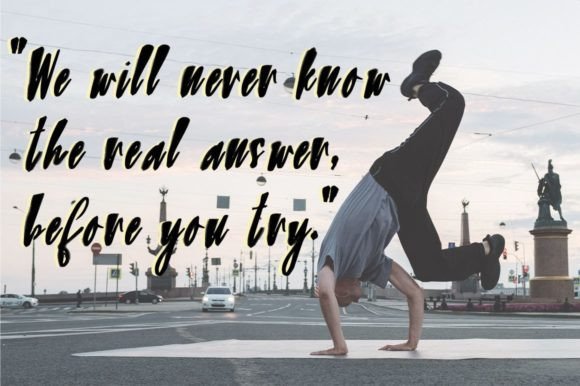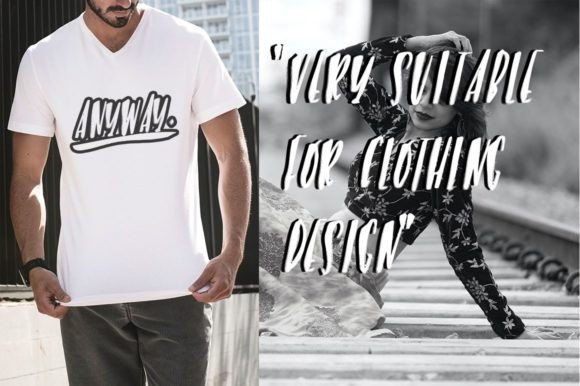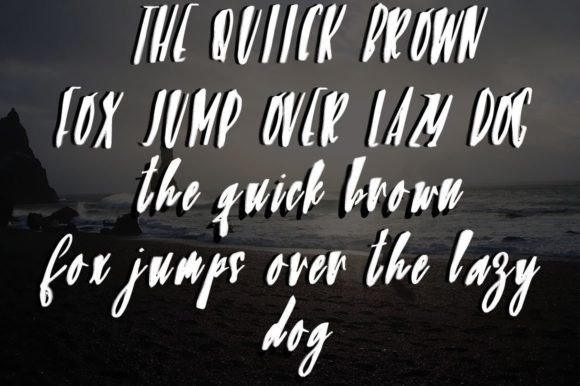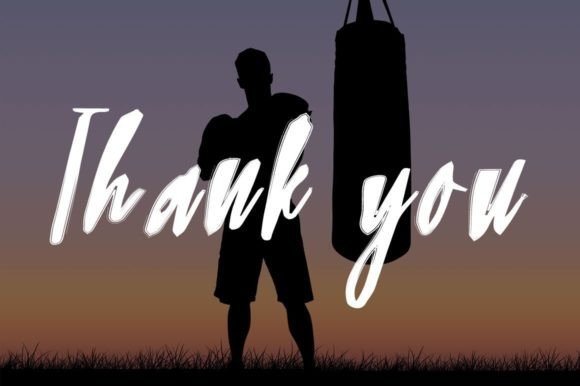
The Ultimate Design Game-Changer: Dinosaur Font
I’ll never forget the moment I stumbled upon the Dinosaur font while working on a project for a client’s dinosaur-themed party invitations. I had been searching for the perfect font for hours, and just when I was about to give up, I found this bold and assertive handwritten font that completely transformed my design. If you’re a designer, crafter, or creative hobbyist looking to elevate your creations with a trendy touch, you’re in luck because today I’m excited to share with you the awesomeness that is Dinosaur font.
- ✅ Bold and Assertive: Dinosaur font makes a statement and is perfect for headings, titles, and emphasis text.
- ✅ Handwritten Charm: Its unique, handwritten feel adds a touch of personality to any design.
- ✅ Versatile: Whether you’re working on a kids’ party invitation, a bold poster, or a trendy branding project, Dinosaur font fits right in.
- ✅ Easy to Read: Despite its boldness, the font remains surprisingly legible, even at smaller sizes.
- ⚠️ Overuse: Because it’s so bold and attention-grabbing, be careful not to overuse Dinosaur font in your design. Balance is key.
- ⚠️ Pairing with Other Fonts: Finding the right font pairing can be a bit tricky. You may need to experiment with a few combinations to find the perfect match.
Exploring OpenType Features, Glyphs, and Stylistic Alternates
One of the exciting aspects of Dinosaur font is its support for OpenType features. These features allow you to customize your text even further:
- Ligatures: Add unique letter combinations for a more artistic look.
- Stylistic Alternates: Switch between different versions of letters or numbers for varied textures.
- Glyphs: Access additional symbols and icons to enhance your design.
While the exact origins of Dinosaur font are unclear, it’s easy to imagine a designer inspired by the raw power and majesty of dinosaurs. Perhaps they wanted to bottle that energy and excitement into a font that could be used to create bold, eye-catching designs. Whatever the inspiration, Dinosaur font is undoubtedly a design asset that packs a punch.
Q: Is Dinosaur font suitable for body text?
A: While Dinosaur font is bold and assertive, it’s generally better suited for headings and titles. For body text, a more readable font is usually preferred.